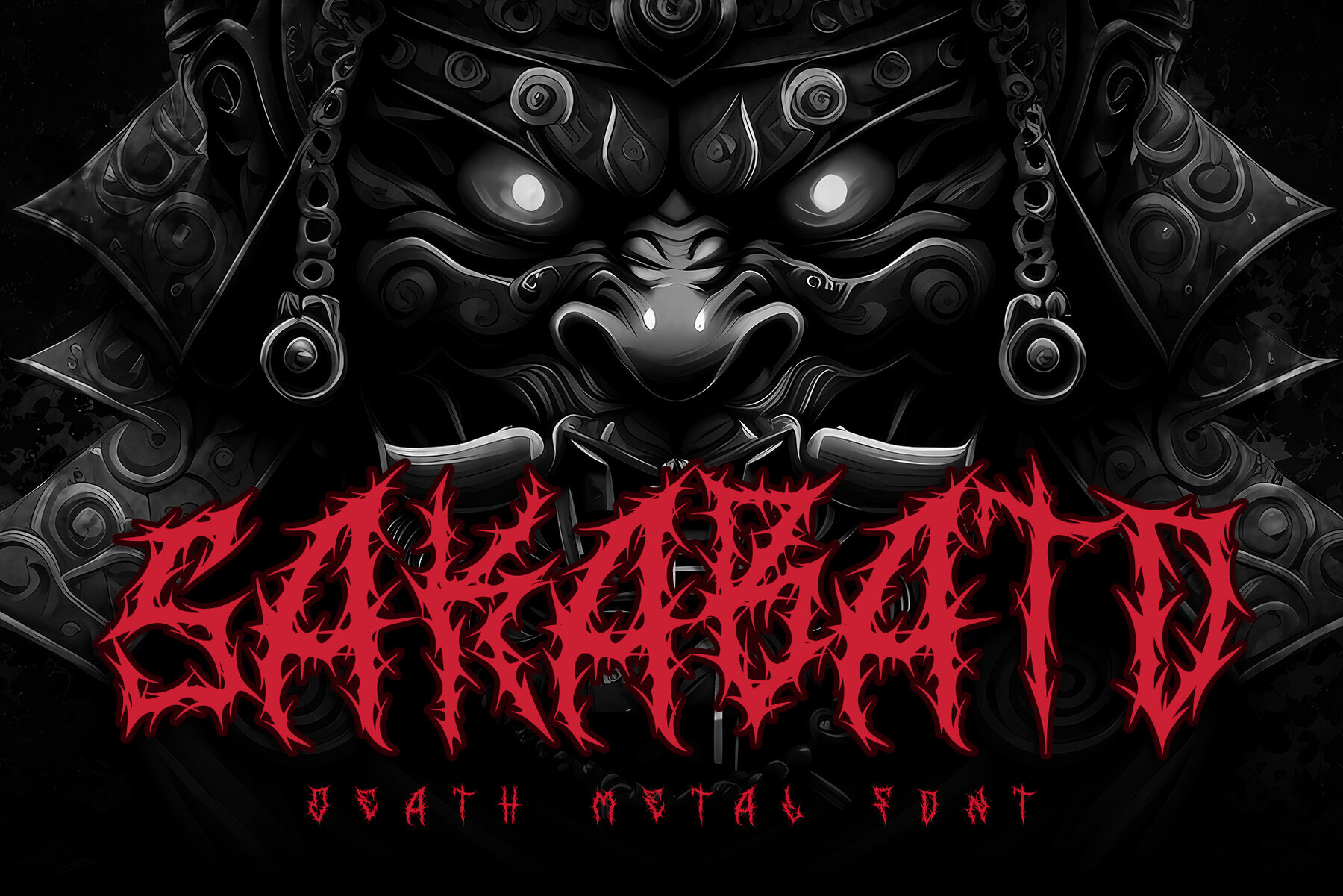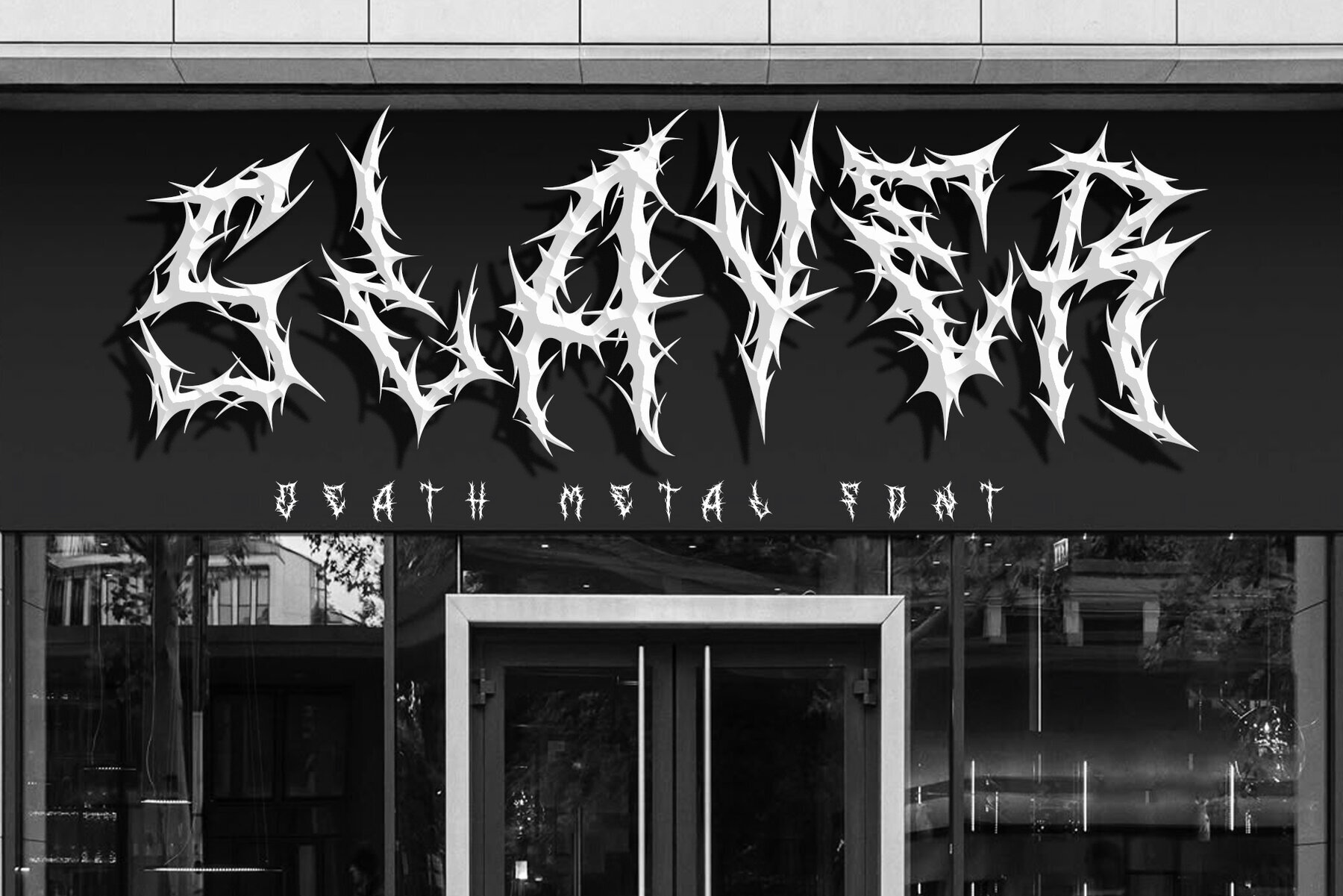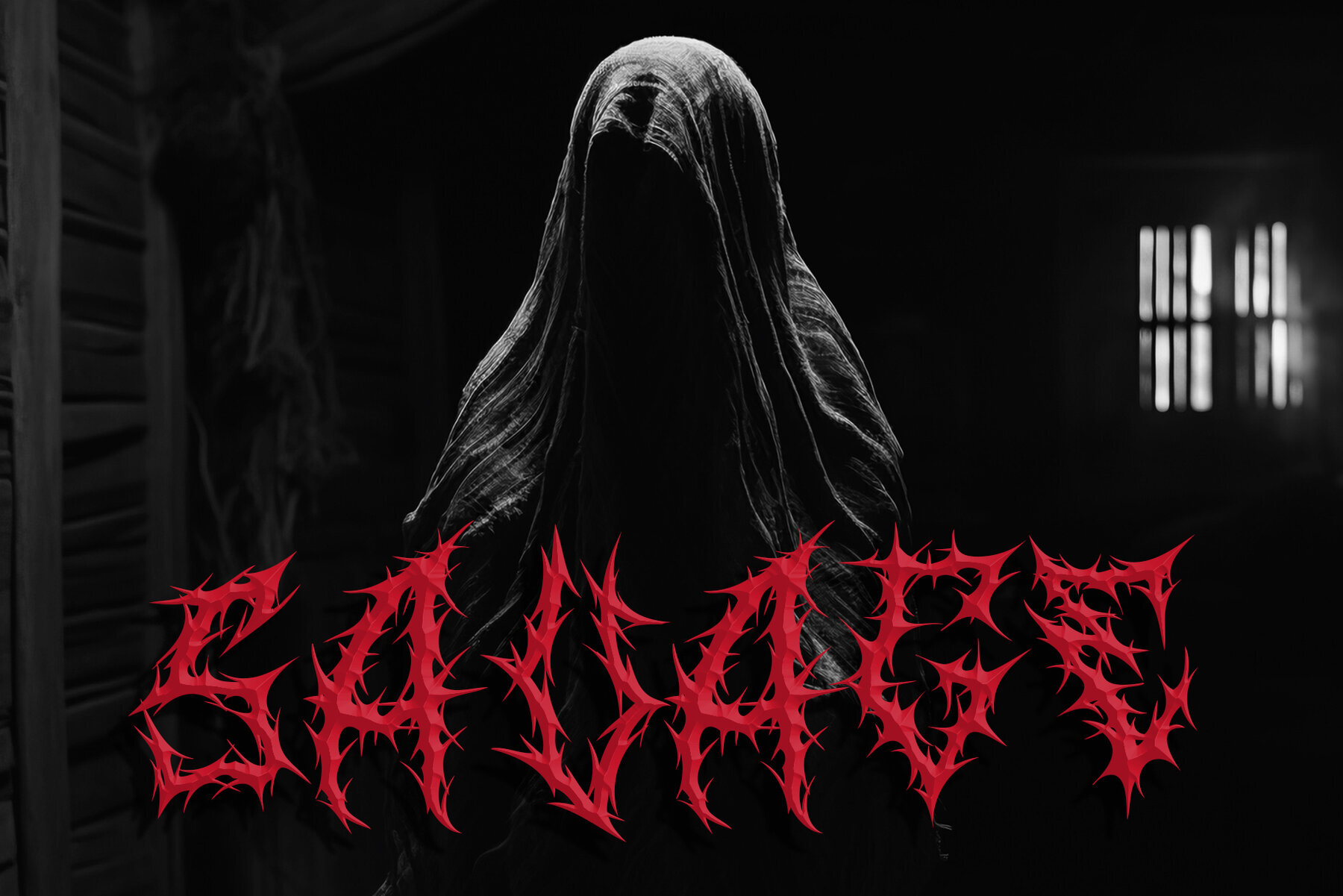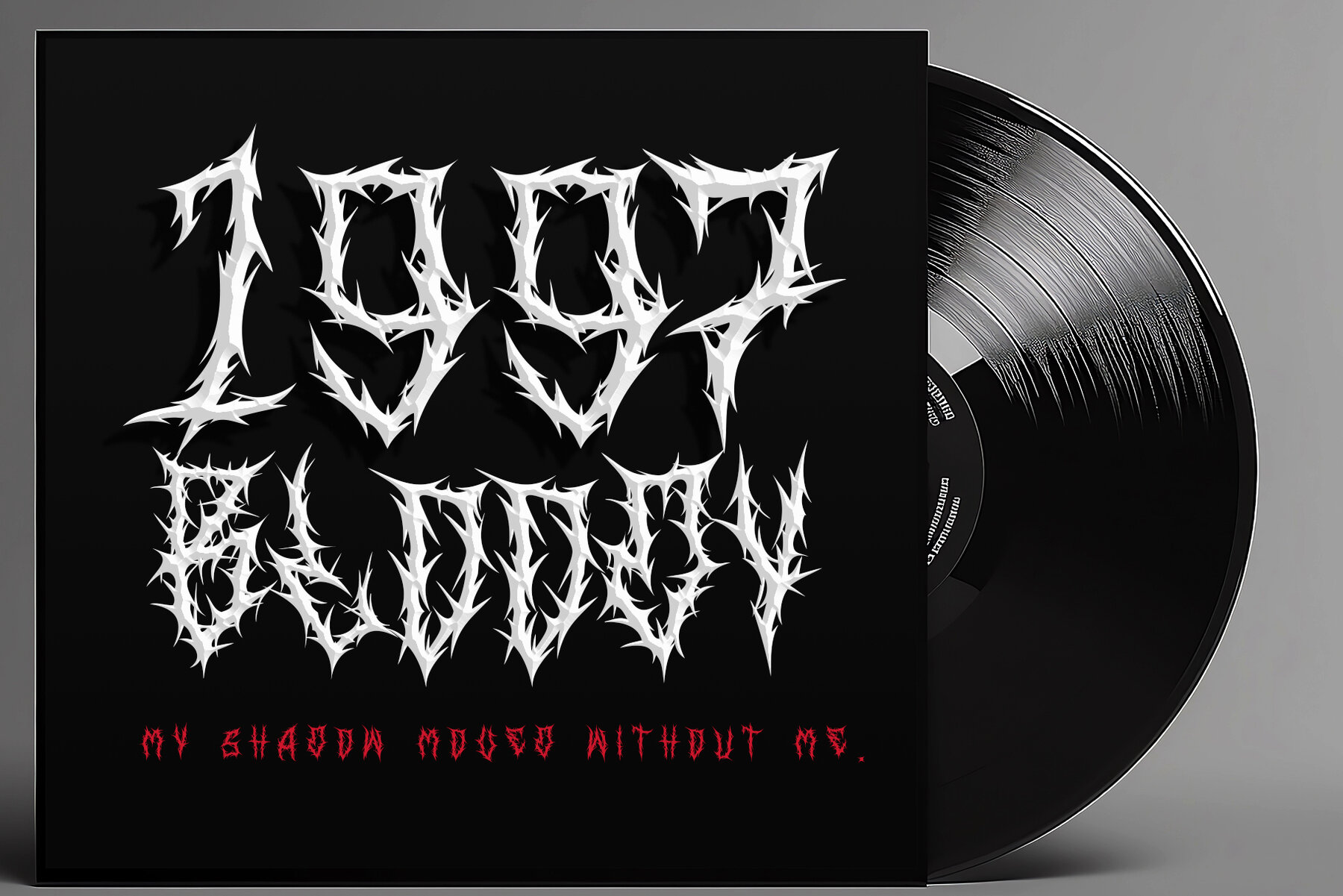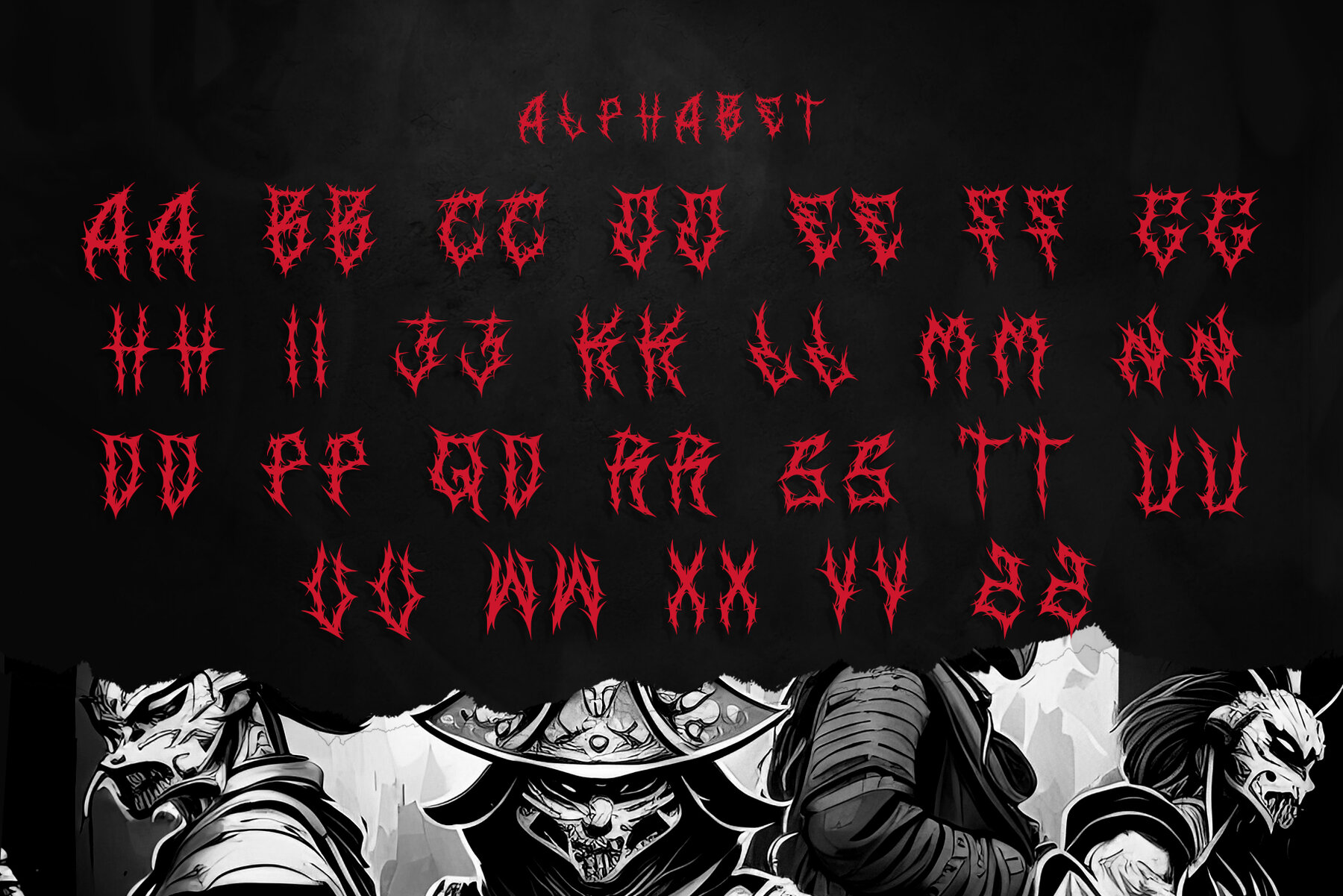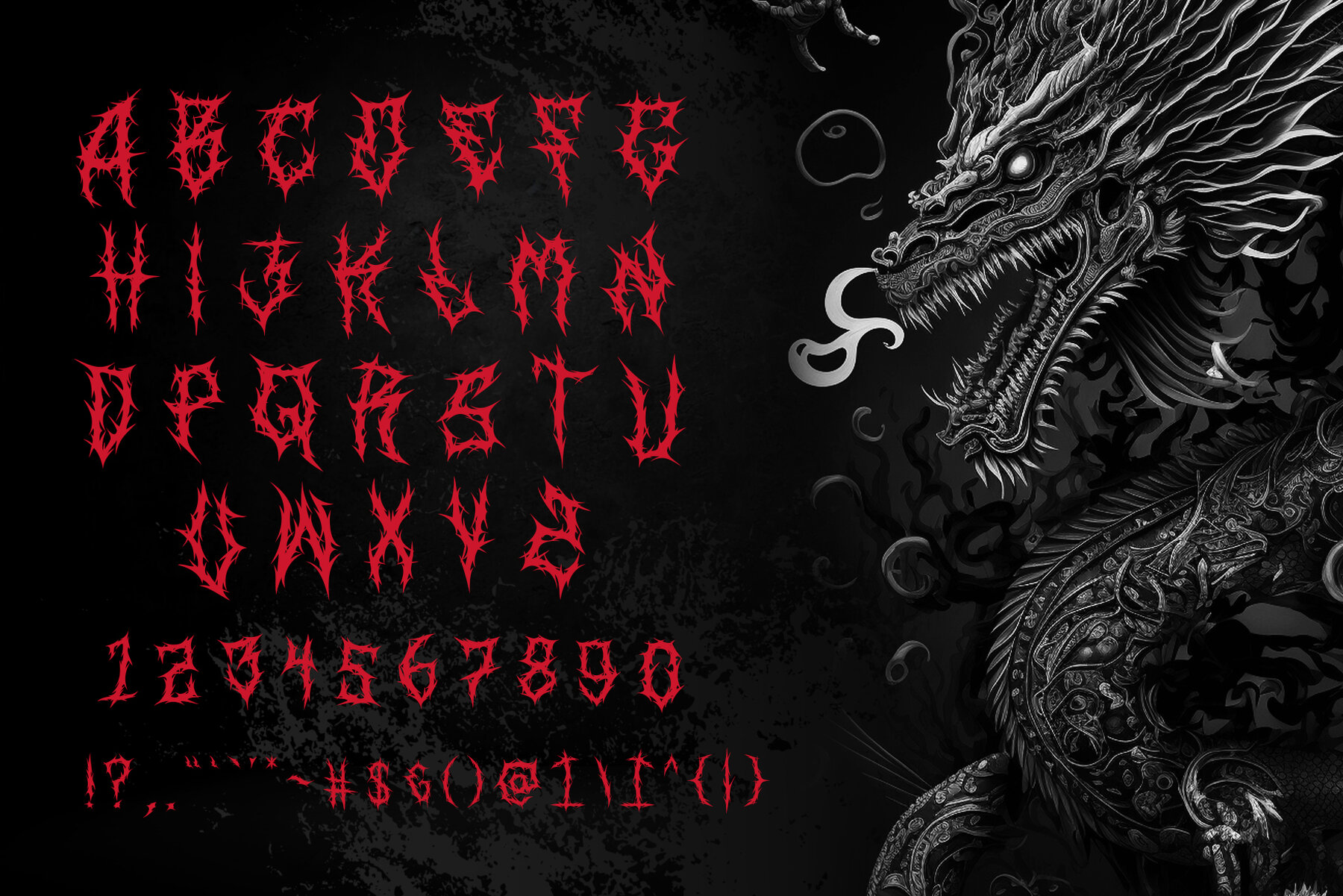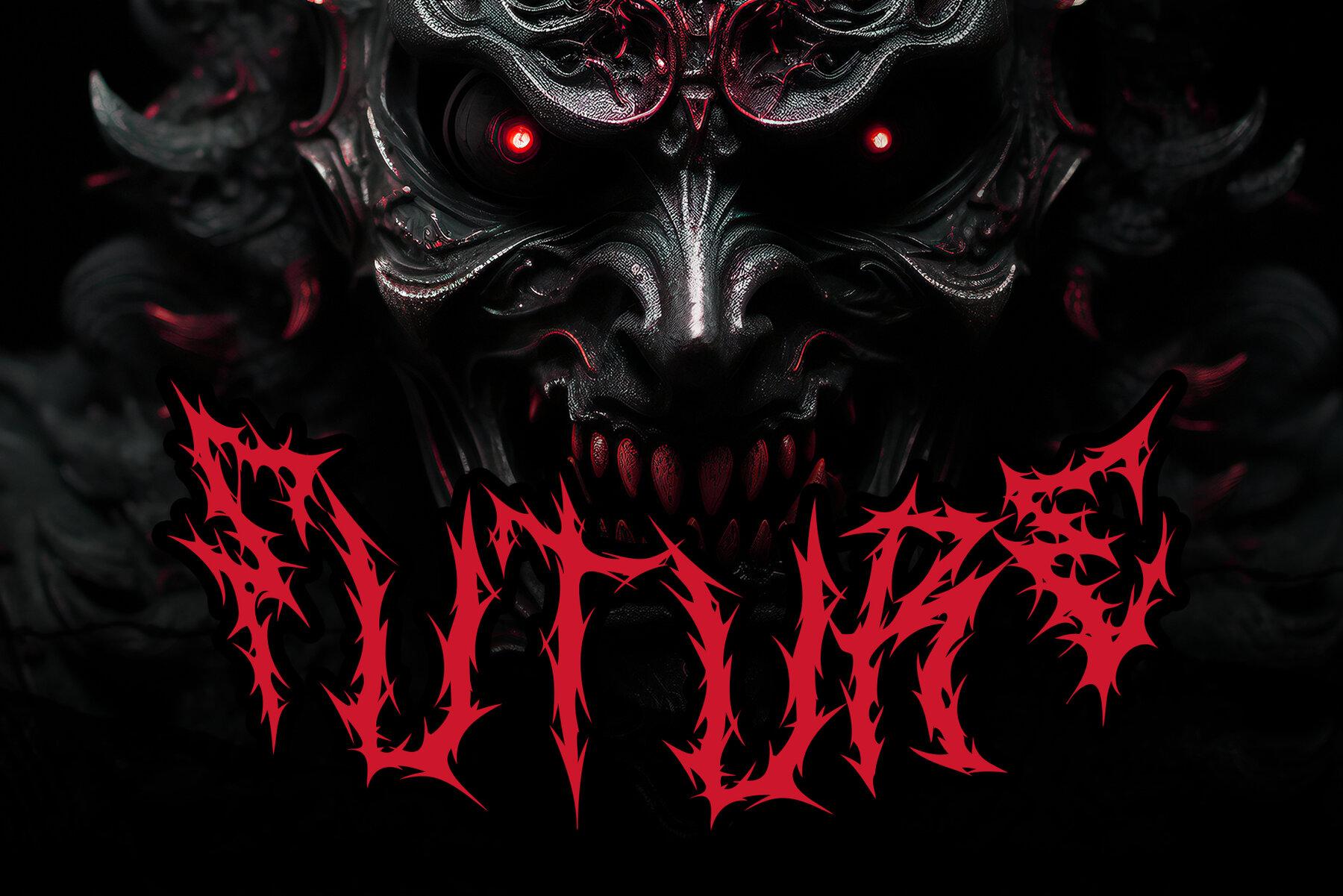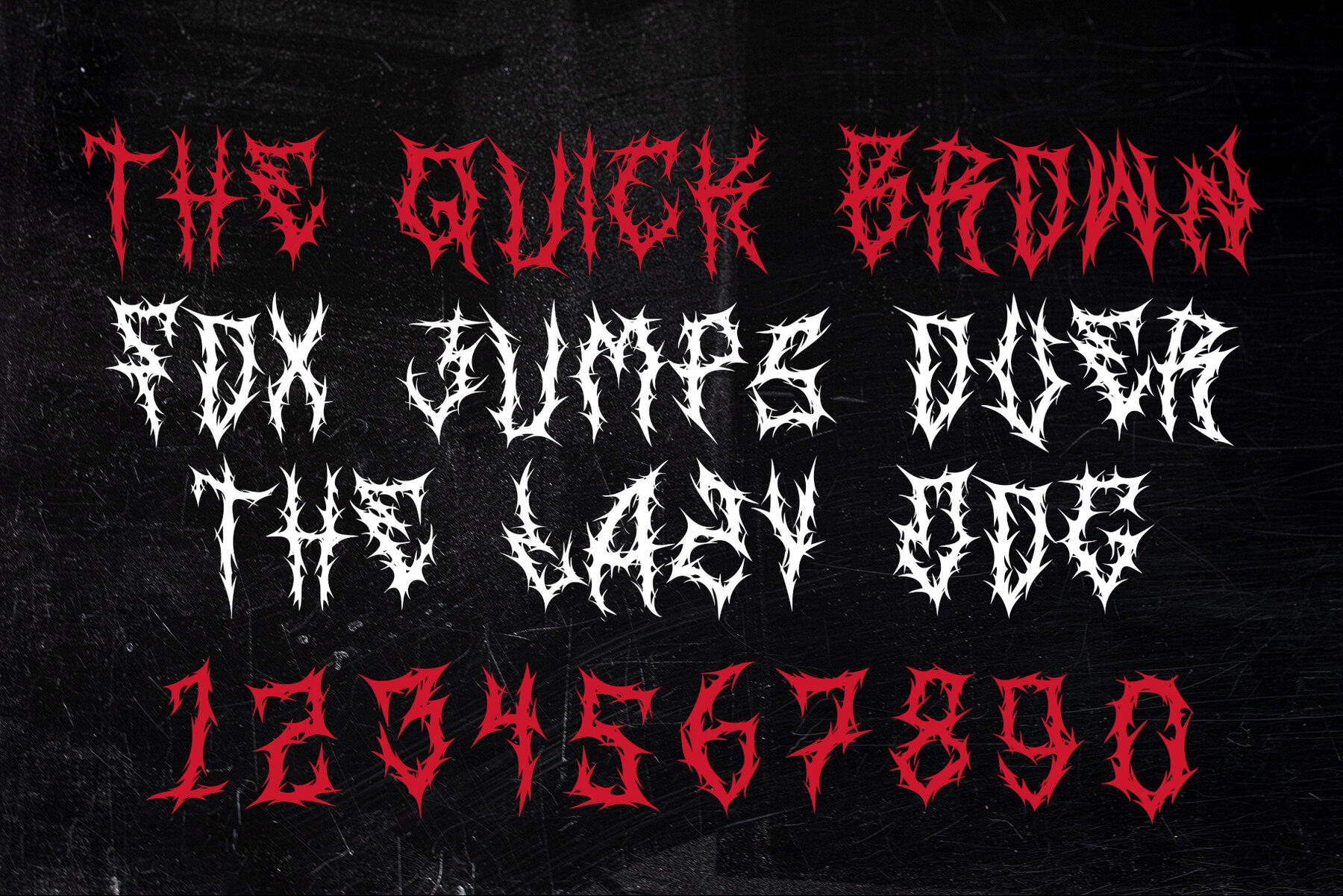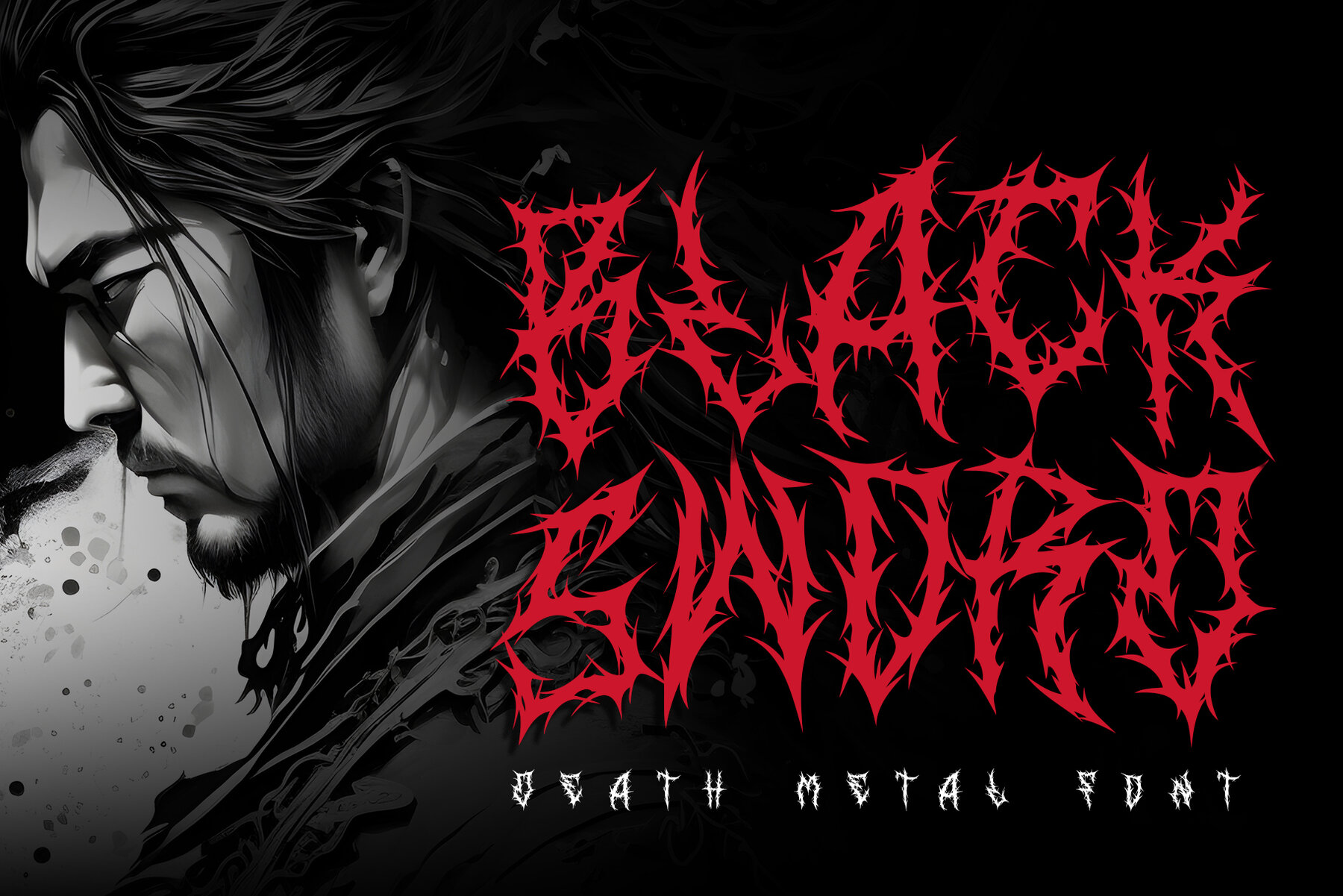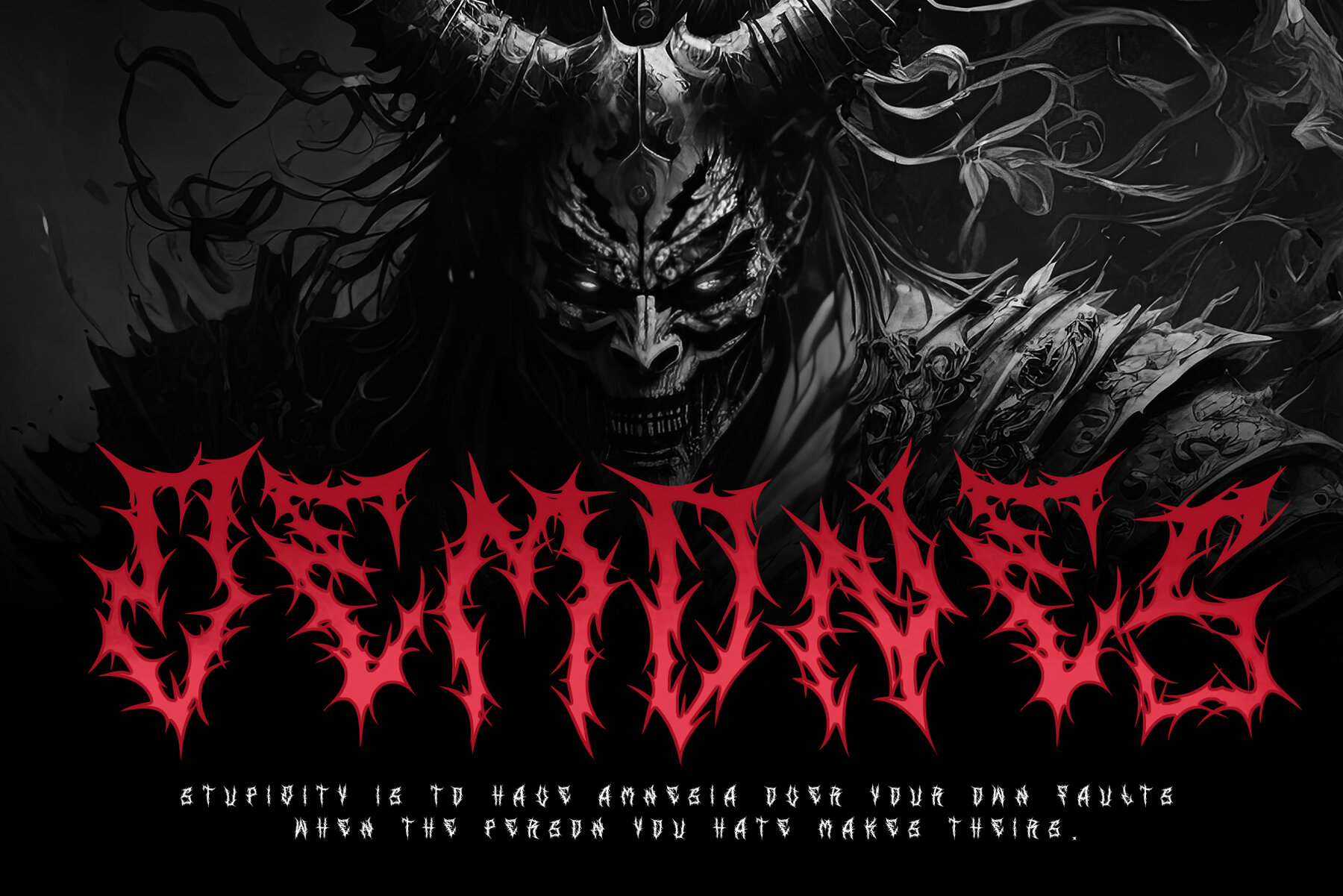
SAKABATO Font
SAKABATO
SAKABATO is a bold, dramatic typeface that combines the raw power of heavy metal with the intricate elegance of gothic blackletter design. With its sharp edges, brutal detailing, and handcrafted horror vibe, this font is a perfect fit for projects demanding a dark, rebellious, and striking aesthetic. SAKABATO's intense, sinister ambiance commands attention. Its unique style fuses medieval gothic spirit with modern extreme energy, offering a standout choice for designers in search of something bold and haunting. Whether you're working on music, horror, or alternative culture projects, SAKABATO adds a powerful edge and unforgettable character to your designs.SAKABATO: Metal Blackletter Horror Font
Unique Style for Bold Designs